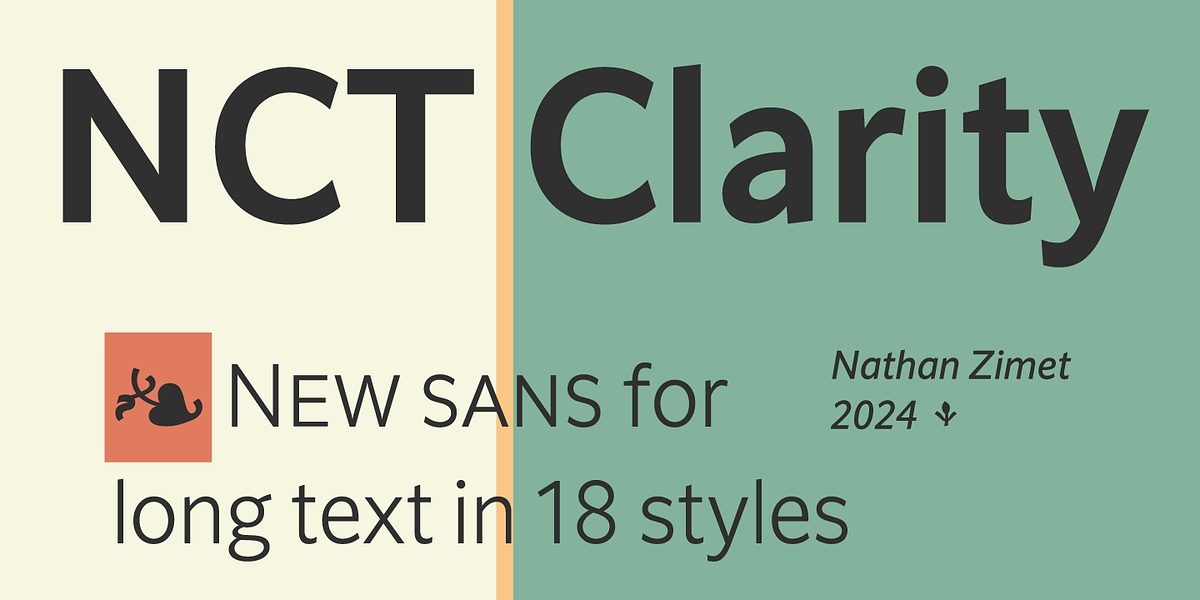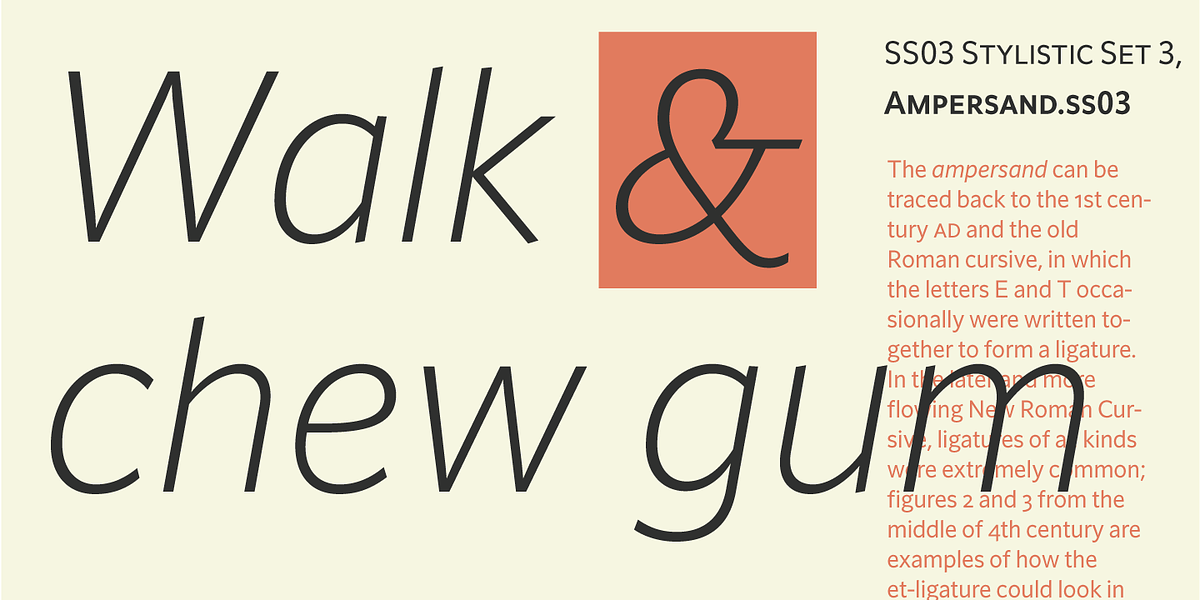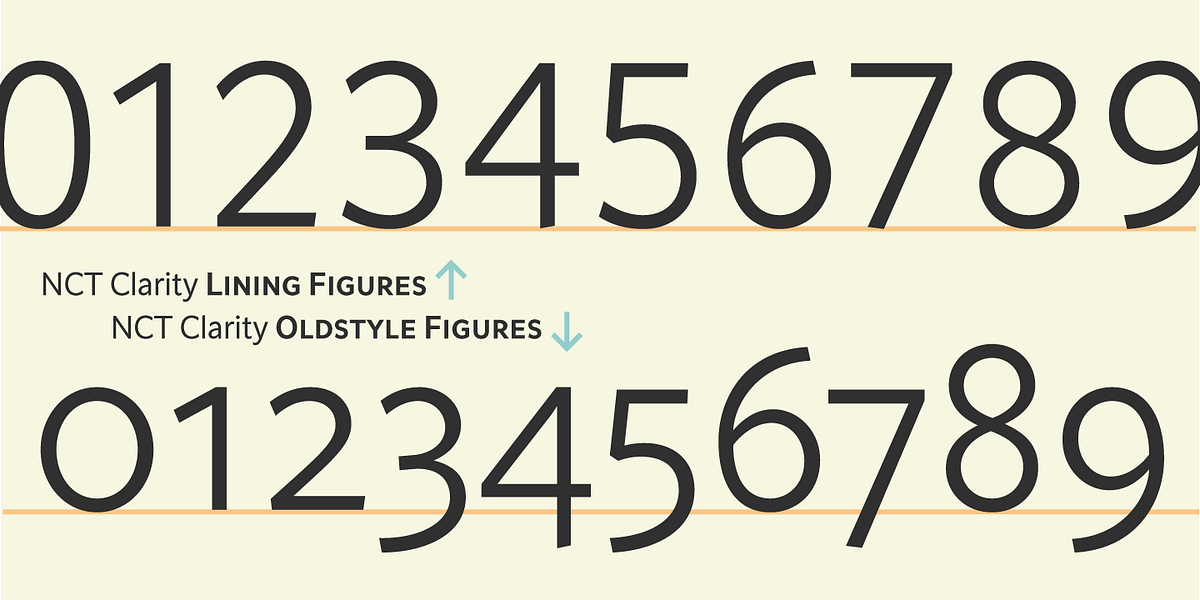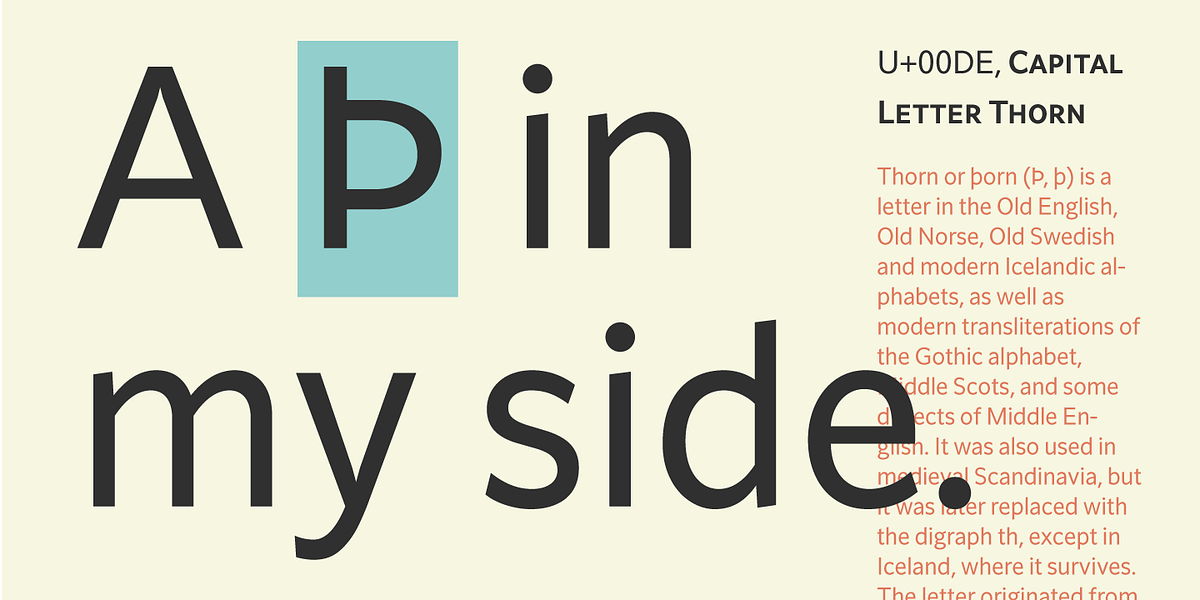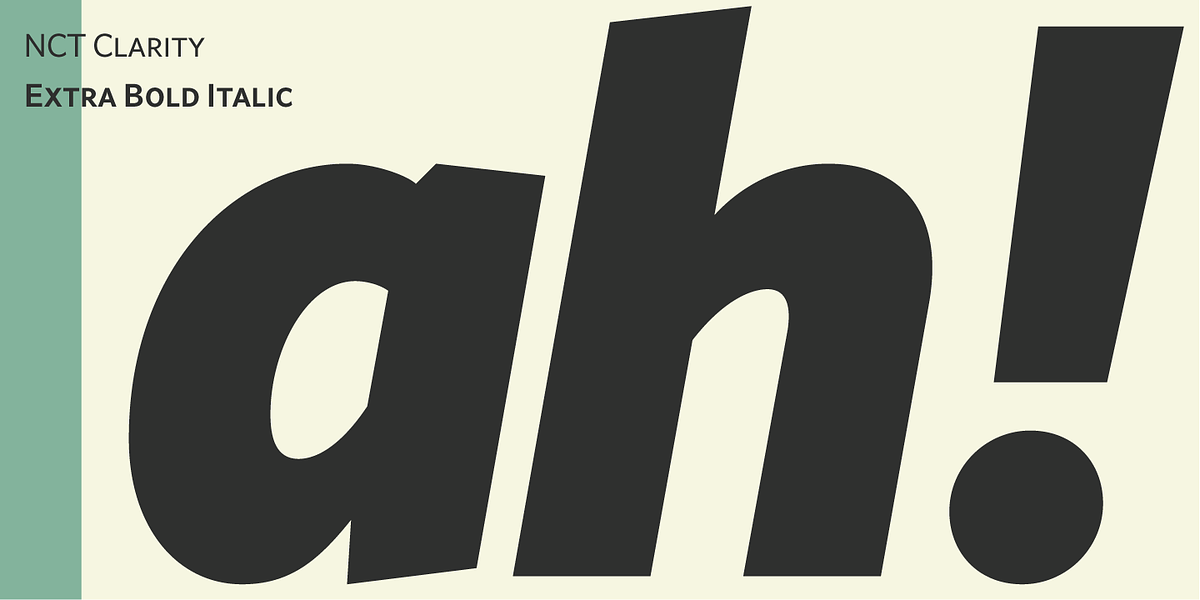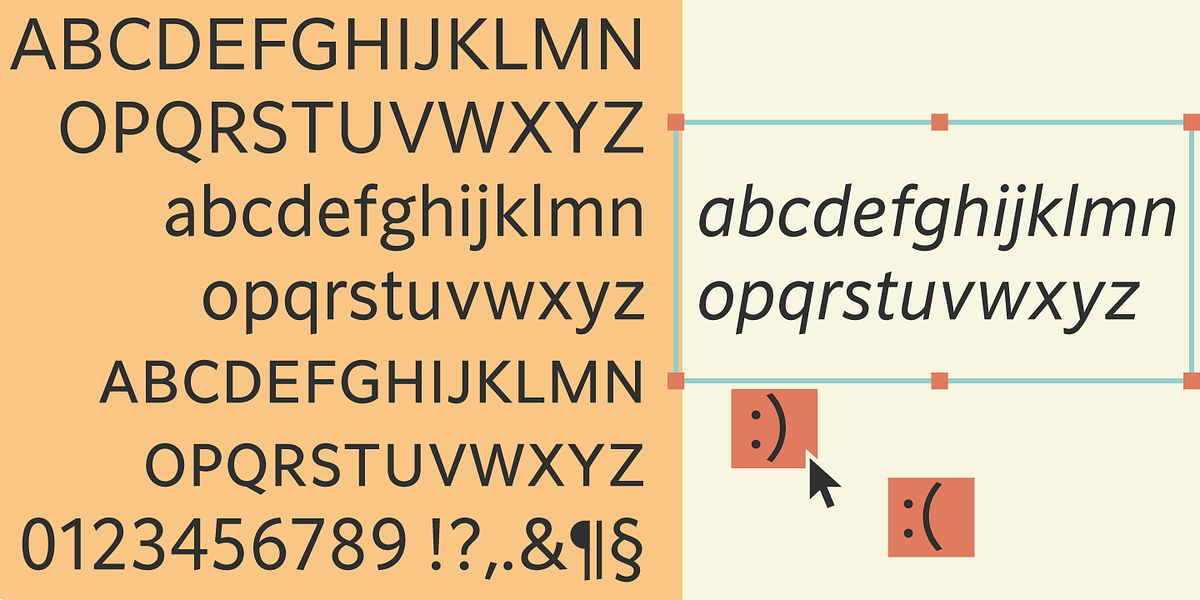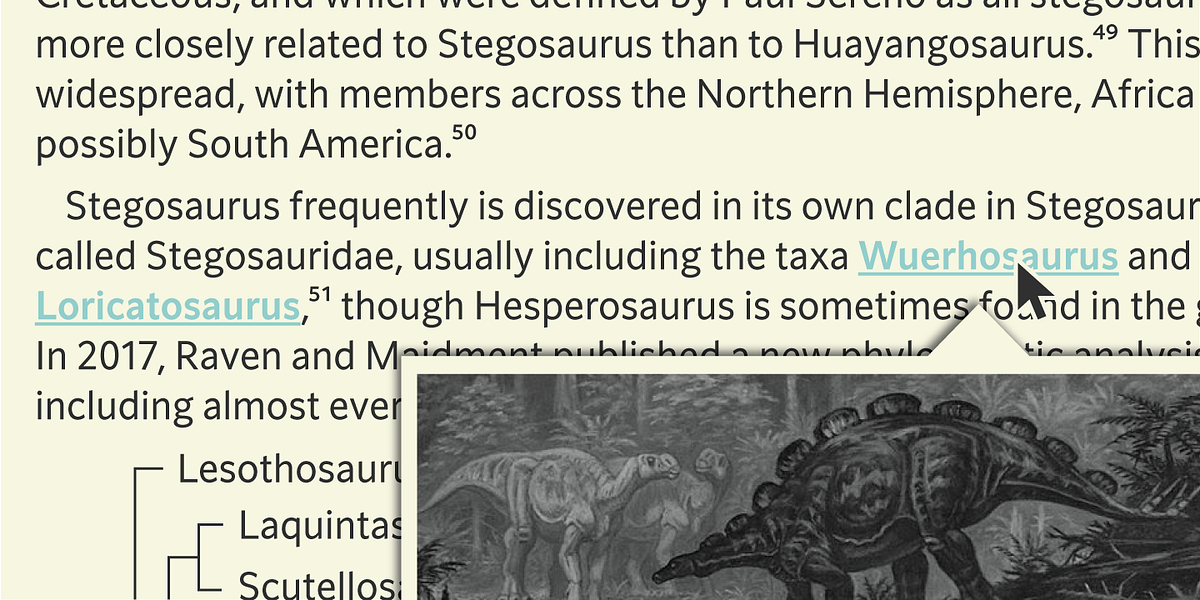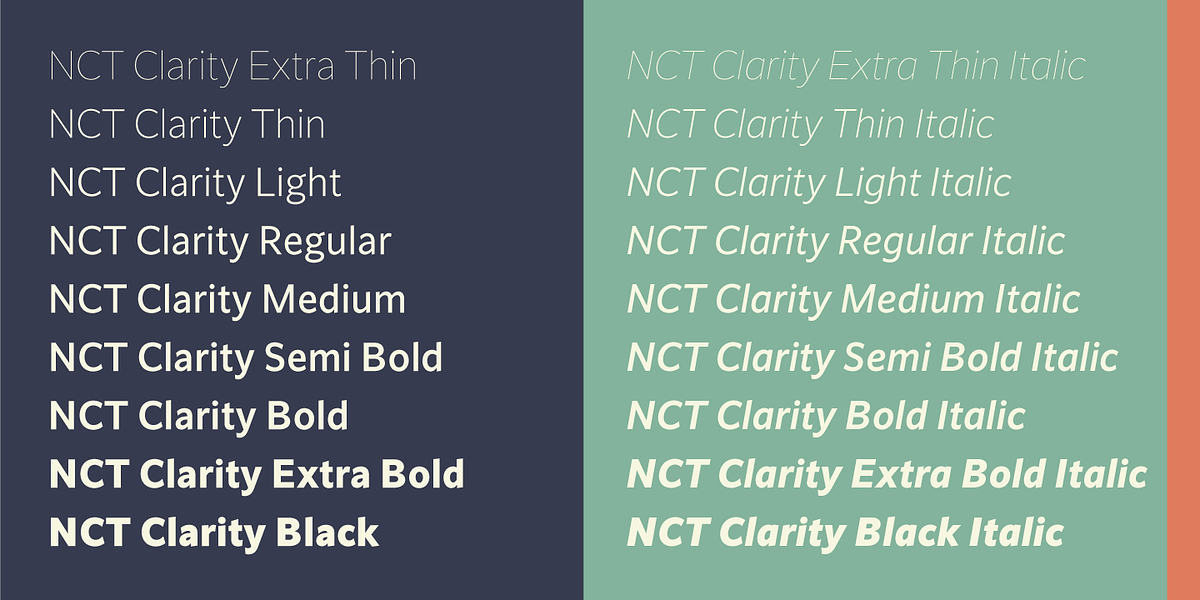
NCT Clarity
This humanist sans serif font is designed for readability in long blocks of text. It features a subtle calligraphic influence and comes in nine weights, including small caps, old-style figures, and matching hand-drawn italics. The font also supports combining accents for greater flexibility.